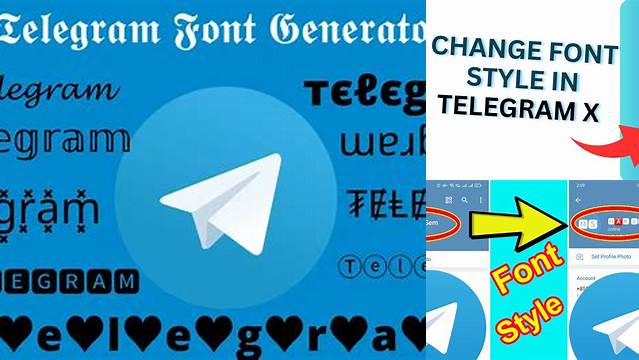
Get Stylish With Premium Fonts On Telegram!
Hey guys! Ever wished you could jazz up your Telegram chats with some super cool fonts? You're in the right place! Today, we're diving deep into the world of premium fonts Telegram channels, and trust me, it's a game-changer. We'll explore everything from finding the best channels to using these fonts and even some cool tips and tricks. So, buckle up, because your Telegram experience is about to get a major upgrade! 😉
1. Unveiling the World of Premium Fonts on Telegram
Alright, let's kick things off with the basics. What exactly are we talking about when we say premium fonts Telegram channel? Basically, these channels are hubs where you can snag a ton of different fonts to use in your Telegram chats. Forget the boring default fonts, my friends! With these channels, you can express yourself in a whole new way. Imagine using a fancy cursive font for a special message, a bold, attention-grabbing font for important announcements, or even a cute, playful font for your everyday chats. The possibilities are endless, and the best part? It's all at your fingertips. Finding the right channel is key, so we'll get into the nitty-gritty of that later on. But first, let's talk about why you should even bother with premium fonts. First off, they boost your personality. The fonts make your messages stand out from the crowd. And second, the fonts can simply make your messages more readable and attractive. Premium fonts on Telegram have the power to transform how you communicate with others. It is a great way of expressing your unique style and personality. These fonts can be used for various purposes. Also, they can also significantly impact the visual appeal of your text. So, let's start exploring the fascinating world of premium fonts on Telegram.
2. Finding the Best Telegram Channels for Premium Fonts
Okay, so you're sold on the idea of spicing up your Telegram chats with some fancy fonts. Awesome! Now, the next question is: how do you actually find these magical premium fonts Telegram channels? Fear not, my friend, because I've got some tips to help you navigate the Telegram universe and find the perfect font haven. First and foremost, use the search bar! Telegram's search function is your best friend here. Type in keywords like “premium fonts,” “Telegram fonts,” “fancy text,” or even just “fonts.” You'll be surprised by how many channels pop up. Once you have a list of channels, take a peek at the content. Are they regularly updated with new fonts? Do they offer a variety of styles? Read the descriptions of the channels carefully to see if they align with your needs and preferences. Another great way to find channels is through recommendations. Ask your friends, family, or online communities if they know any good font channels. You might stumble upon some hidden gems this way. Consider checking out font-related groups and forums. Many font enthusiasts and designers share their favorite channels within these communities. Always be aware of the channel's reputation and how the community feels about the channel. Look for active channels, which have frequent updates. It means the channel owners are actively curating new fonts and keeping the content fresh. So, take your time, explore your options, and find the channels that best suit your font needs. The best premium fonts Telegram channels will offer a wide range of fonts to elevate your texting experience.
3. Understanding the Different Types of Premium Fonts Available
Alright, let's talk fonts! When you start exploring premium fonts Telegram channels, you'll quickly realize that there's a whole world of styles out there. It's like a buffet for your text, and you get to choose what you want! So, what kinds of fonts can you expect to find? There are many categories of fonts. First off, we have the classics: the serif fonts (think Times New Roman, but with a twist), the sans-serif fonts (clean and modern, like Arial or Helvetica), and the monospace fonts (where each letter takes up the same amount of space, perfect for coding or a retro vibe). These are your bread and butter, and they're available in different weights, like bold, italic, and regular. You'll also find a huge variety of decorative fonts, which are where things get really fun. These fonts are more whimsical and creative. They can be anything from elegant cursive fonts that look like they were written with a pen to quirky, playful fonts that resemble handwriting. In addition to these categories, you might find symbol fonts or specialty fonts, which use symbols or unique characters to create a specific effect. They're a great way to add some extra flair to your text, whether it's for fun or adding personality. Understanding what is available is very important. The selection is incredibly diverse, so take your time to discover what fits your style!
5. Tips and Tricks for Using Premium Fonts Effectively
Alright, you've got the fonts, you know how to use them, but how do you make the most of them? Let's dive into some tips and tricks to help you become a premium fonts Telegram channel pro. First and foremost, use fonts strategically. Don't go overboard and use a different font for every single word. Instead, use fonts to highlight key phrases, important information, or to add emphasis. This can make your messages more readable and engaging. Think about the context of your message. Use a formal font for professional communications and a more casual font for chatting with friends. Another great tip is to experiment with different combinations. Try using a bold font for headings or titles, and a regular font for the body of your text. You can also mix and match fonts to create a unique look. Don't be afraid to have fun and play around with different styles. To avoid confusion, use fonts consistently throughout the chat. If you use a specific font for a particular purpose, make sure to stick with it. Most importantly, be mindful of readability. While fancy fonts are cool, make sure your message is still easy to understand. Avoid using fonts that are too difficult to read. By following these tips, you will not only enjoy using your new fonts but will also significantly impact the way others perceive and engage with your texts.
6. The Benefits of Using Premium Fonts on Telegram
So, why should you bother with premium fonts Telegram channels in the first place? Let's talk about the benefits. First and foremost, using fonts can enhance your communication. Different fonts evoke different emotions and help you convey your message more effectively. You can express your unique personality and style, and make your messages stand out from the crowd. In addition, fonts can improve the visual appeal of your messages. They add visual interest and make your texts more engaging. This is particularly useful for sharing important information, making announcements, or simply making your chats more enjoyable. Moreover, using fonts can improve readability. Some fonts are more readable than others, and choosing the right font can make a big difference, especially when you are sharing long messages. Lastly, the ability to customize your messages allows you to add your personal touch. Whether you're using a bold font to grab attention, a cursive font to convey elegance, or a playful font for fun, the benefits are clear: it enhances communication, expresses personality, improves visual appeal, and can enhance readability.
7. Addressing Potential Drawbacks and Limitations
While using premium fonts Telegram channels can be awesome, it's also important to be aware of the potential drawbacks and limitations. One thing to keep in mind is that not all devices support all fonts. If you send a message with a fancy font, some people might see a generic font. This can be a bit frustrating, but it's just the way it is. Also, font overload is a real thing. It's easy to get carried away and use a different font for every single word. However, this can make your messages difficult to read and can come across as unprofessional. Another thing to keep in mind is that using fonts won't change the content of your message. The font is just a visual element. If your message is boring, the font won't fix it. Finally, be aware of the channels themselves. Ensure that they are from a reliable source. While the world of fonts can be exciting, it's always a good idea to be mindful of potential limitations. Using fonts may not be for everyone. It is crucial to balance your font usage to maximize its benefits. This will make your experience more positive.
8. Customizing Your Telegram Experience with Fonts
Guys, using premium fonts Telegram channels is all about personalizing your experience! It's like adding your own unique touch to the app and making it truly yours. So how do you do it? First, experiment with different fonts. Try out different styles and see which ones you like best. Don't be afraid to be creative and express yourself. Next, consider the context. For personal chats, you can use playful fonts. For professional communications, stick to cleaner, more formal styles. Another tip is to create a personal font library. Save your favorite fonts in a special place so you can easily access them. This is particularly helpful if you have a specific font that you love and want to use all the time. Finally, don't forget the power of consistency. Choose a few fonts that you like and use them regularly to create a cohesive look. By customizing your Telegram experience with fonts, you're not just making your chats look better, you're making them feel more personal.
9. Exploring Alternative Methods for Font Customization
While premium fonts Telegram channels are a great way to get started, there are also other ways to customize your fonts on Telegram. Let's explore some alternative methods! One popular option is to use online font generators. These websites allow you to type your text and convert it into various styles. You can then copy and paste the formatted text into your chats. Another option is to use Telegram bots. There are many bots available that will format your text into different fonts and styles. You can simply type your message, and the bot will do the rest. Additionally, you can use font keyboard apps. These apps allow you to type your message directly in a different font and style. With these options, you can pick the method that best suits your preferences!
10. Staying Updated with the Latest Font Trends
Alright, let's keep you in the loop, guys! The world of fonts is constantly evolving, and it's important to stay updated with the latest trends. So, how do you do it? Follow font-related blogs and websites. These resources often feature the latest fonts, trends, and design tips. Join font communities. This will enable you to connect with other font enthusiasts. They will also share their favorite fonts and latest design trends. Keep an eye on design platforms. Websites like Behance and Dribbble often showcase new fonts and design styles. Stay active in premium fonts Telegram channels. This way you will be updated with new font options. By staying updated with the latest font trends, you'll always have access to the latest and greatest fonts, ensuring your texts are always fresh. Plus, you'll be a font trendsetter, sharing your stylish finds with your friends!
11. Best Practices for Choosing the Right Font
Choosing the right font can make or break your message. So, let's look at some best practices for selecting fonts that make a statement. First, consider the purpose of your message. If you're communicating a formal message, go with a clean and readable font. For casual chats, you can experiment with more playful styles. Second, consider your audience. Think about the people you're communicating with and the kind of font they would appreciate. Third, always prioritize readability. Choose fonts that are easy to read on different devices and at different sizes. Do not sacrifice the readability for style. Finally, experiment with different font combinations. Try pairing fonts to create a unique and visually appealing look. You can experiment with different font combinations by choosing fonts that complement each other. By following these best practices, you can ensure that your font choices enhance your messages, making them more effective and engaging.
12. The Impact of Fonts on Readability and User Experience
Fonts aren't just about looking good; they also play a crucial role in readability and user experience. Choosing the right font can make your text easy to read, while choosing the wrong font can make it hard to focus on the content. Let's dig into the impact of fonts on readability. First, choose fonts with clear letterforms. Select fonts where each letter is distinct and easy to recognize. This reduces the amount of effort required to read the text. Second, consider the font size. Make sure the font size is big enough to read comfortably on the device you are using. The font should be comfortable to read. Do not make the size too big or too small. Finally, avoid fonts that are too ornate or complex. They can make your text difficult to read, especially in long blocks of text. The correct fonts enhance the user experience. Choose fonts that are easy to read, and easy to understand.
13. Protecting Your Privacy and Security When Using Fonts
While using premium fonts Telegram channels is mostly fun, it's also important to think about your privacy and security. So, here's what you should keep in mind: First, only download fonts from trusted sources. Avoid downloading fonts from shady websites or unverified channels. They might contain malware or other threats. Second, be cautious about granting permissions. Always review the permissions a font or app requests before installing it. If something seems suspicious, don't install it. Also, consider using a VPN. This adds an extra layer of security to your online activity, including your Telegram chats. Be aware of your data usage. Some font-related apps or services may collect data about your usage. Read the privacy policies of any font you use. Keep your device secure. Regularly update your device's operating system and security software to protect yourself from threats. Your privacy is important! By following these tips, you can enjoy your font-enhanced chats while keeping your data safe.
14. The Role of Fonts in Branding and Marketing on Telegram
Beyond personal chats, fonts can play a crucial role in branding and marketing on Telegram. Let's see how. Use fonts to establish brand identity. Choose fonts that reflect your brand's personality and values. Create visual consistency. Use the same fonts across all your Telegram channels. Make your messages stand out. Use fonts to make your message visually appealing and grab attention. Improve brand recognition. Consistent font usage helps users easily recognize your brand. Convey a professional image. Use professional fonts to reinforce your brand's professionalism. By using fonts strategically, you can build a strong brand identity. You can also create engaging marketing campaigns on Telegram.
15. Analyzing the Popularity of Different Font Styles
Okay, so you're wondering,